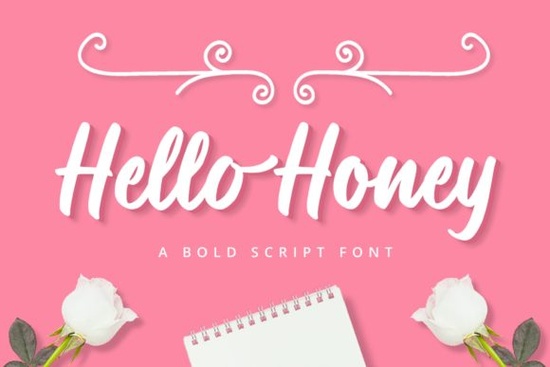
Looking for a bold script font that works equally well on a headline banner and a printed invitation? The Hello Honey Font is a typeface designed for exactly that kind of versatility. It pairs thick, confident strokes with a natural hand-lettered feel, making it a solid pick for designers, crafters, and anyone running a small creative business.
What Makes Hello Honey a Good Choice for Headlines?
Not every script font reads well at large sizes. Some look beautiful in previews but turn muddy or overly thin once scaled up for banners, posters, or social media graphics. Hello Honey avoids that problem because its letterforms are intentionally bold and well-defined. Each character carries enough visual weight to hold its own on screen and in print.
At the same time, the font doesn't feel rigid. The slightly uneven baseline and natural swashes give it personality without sacrificing legibility. This balance is what makes it practical for a range of design needs:
- Social media quotes and promotions bold enough to catch a scroll, clean enough to stay readable.
- Sale banners and online store headers draws attention without looking generic.
- Business cards and branding adds a handcrafted touch to professional layouts.
- T-shirt designs the thick strokes hold up well on fabric, even at smaller sizes.
- Wedding and event invitations the script style brings warmth and elegance.
How Does It Compare to Other Script Fonts?
Hello Honey sits in a sweet spot between casual hand-lettering and polished display typography. If you're already exploring different script styles, it helps to understand how it fits alongside other options.
For instance, retro-inspired script typefaces tend to lean heavily into vintage aesthetics great for certain branding projects, but sometimes too stylized for everyday use. Hello Honey keeps things modern and adaptable.
If you prefer a brush-style script with softer strokes, that's a different direction altogether. Brush fonts work beautifully for feminine or artistic branding, but they can lose definition on textured surfaces or low-resolution prints. Hello Honey's bolder structure makes it more forgiving in those situations.
And for projects that call for a flowing, romantic script think wedding suites or love-themed quotes Hello Honey can hold its own, though it reads as slightly more confident and less delicate than a purely calligraphic alternative.
Can I Use It for Print-on-Demand Products?
Absolutely. Print-on-demand sellers often need fonts that work across multiple product types without looking out of place. A single typeface that looks good on a mug, a tote bag, a greeting card, and a t-shirt saves time and keeps your shop's style consistent.
Hello Honey's bold weight means it reproduces clearly on physical products. Thin script fonts sometimes disappear on darker fabrics or get lost in busy patterns. This typeface avoids that issue, which is especially helpful if you sell through platforms like Etsy, Redbubble, or your own storefront.
Pair it with a clean sans-serif for body text or supporting details. A casual handwritten sans-serif can complement the script without competing for attention. You could also layer it over a chalk-style typeface for a textured, rustic look on seasonal or themed designs.
Does It Work for Both Digital and Print Projects?
Yes and that's one of its stronger qualities. Some script fonts are built mainly for screen use, which means they can look slightly off when printed at high resolution. Others are optimized for print but render poorly on websites or apps at smaller sizes.
Hello Honey handles both environments reasonably well. The letter spacing and stroke weight stay consistent whether you're exporting a PNG for Instagram or sending a PDF to a print shop. That said, it's always worth testing at your final output size before committing to a large batch of printed products.